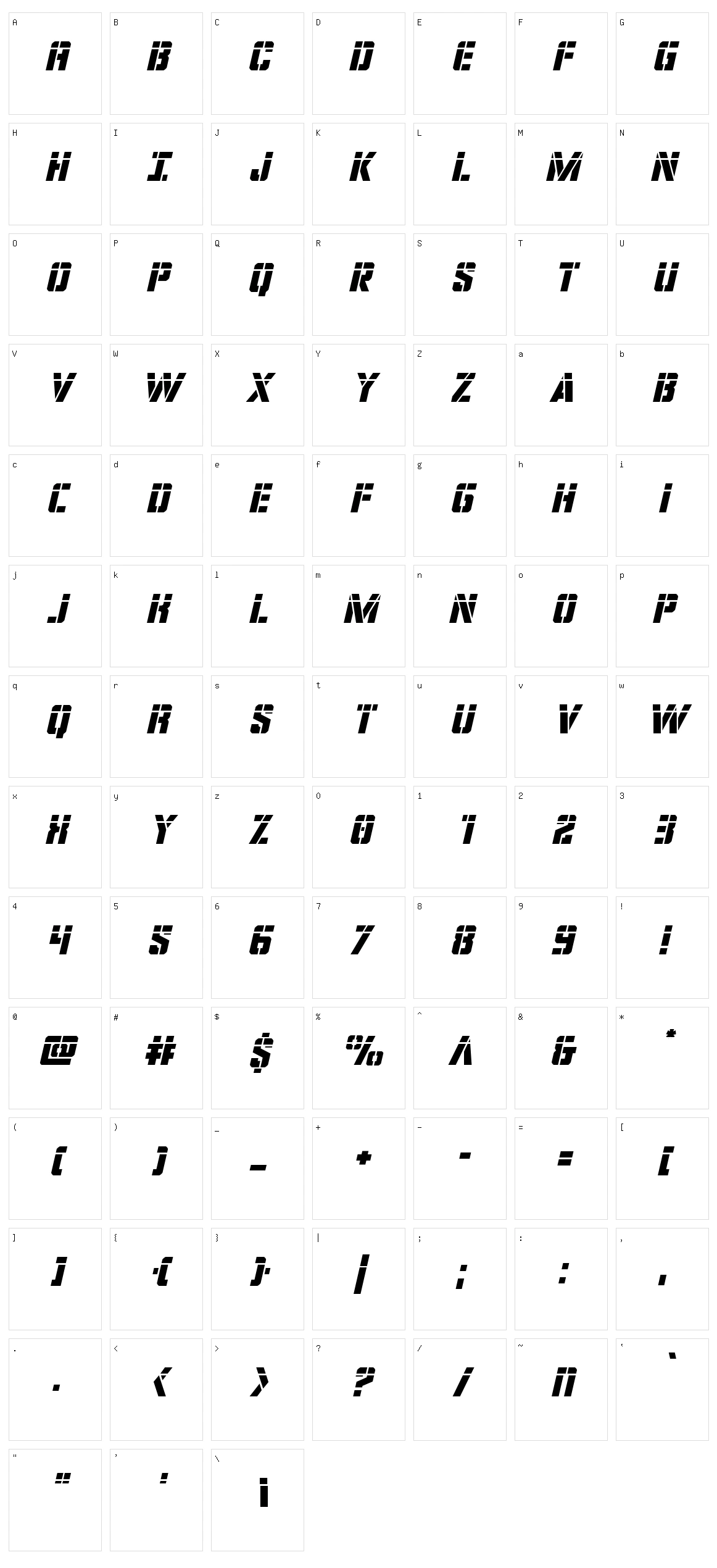
The free font Covert Ops is carefully designed by Iconian Fonts, showcasing a thoughtful balance of creativity and usability and falls under the Stencil font style. When you download the ZIP file, it contains only 382.82 KB of font files, making it lightweight and quick to download. Please review the license details below to understand permitted usage and distribution rights. If license information is not available, we recommend using this font for personal projects only or contacting the author directly for commercial usage permissions.
This font comes with the following 21 versions: Regular, Italic, Semi-Italic, Condensed, Condensed Italic, Expanded, Expanded Italic, 3D, 3D Italic, Outline, Outline Italic, Gradient, Gradient Italic, Halftone, Halftone Italic, Laser, Laser Italic, Title, Title Italic, Super-Italic and Leftalic.